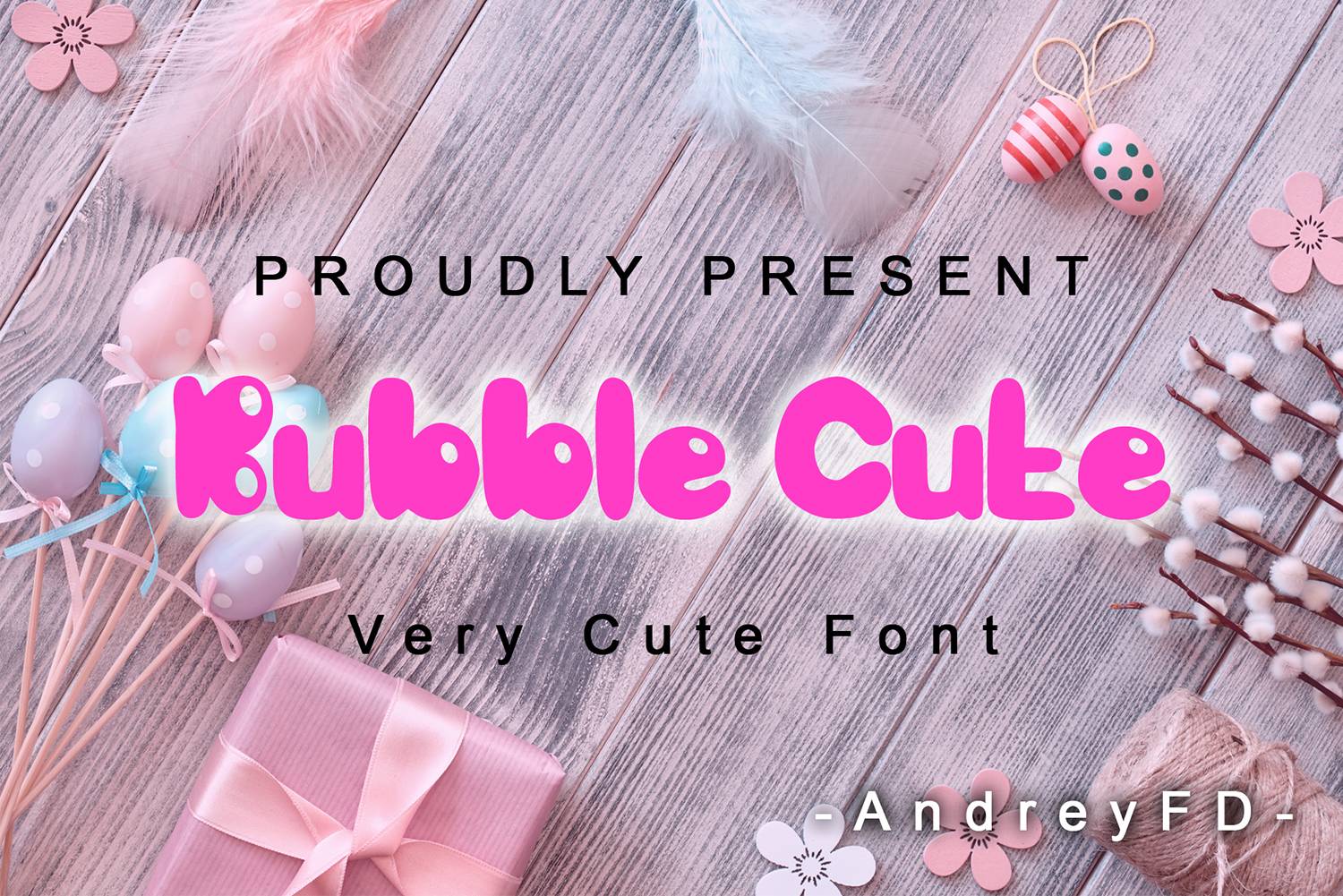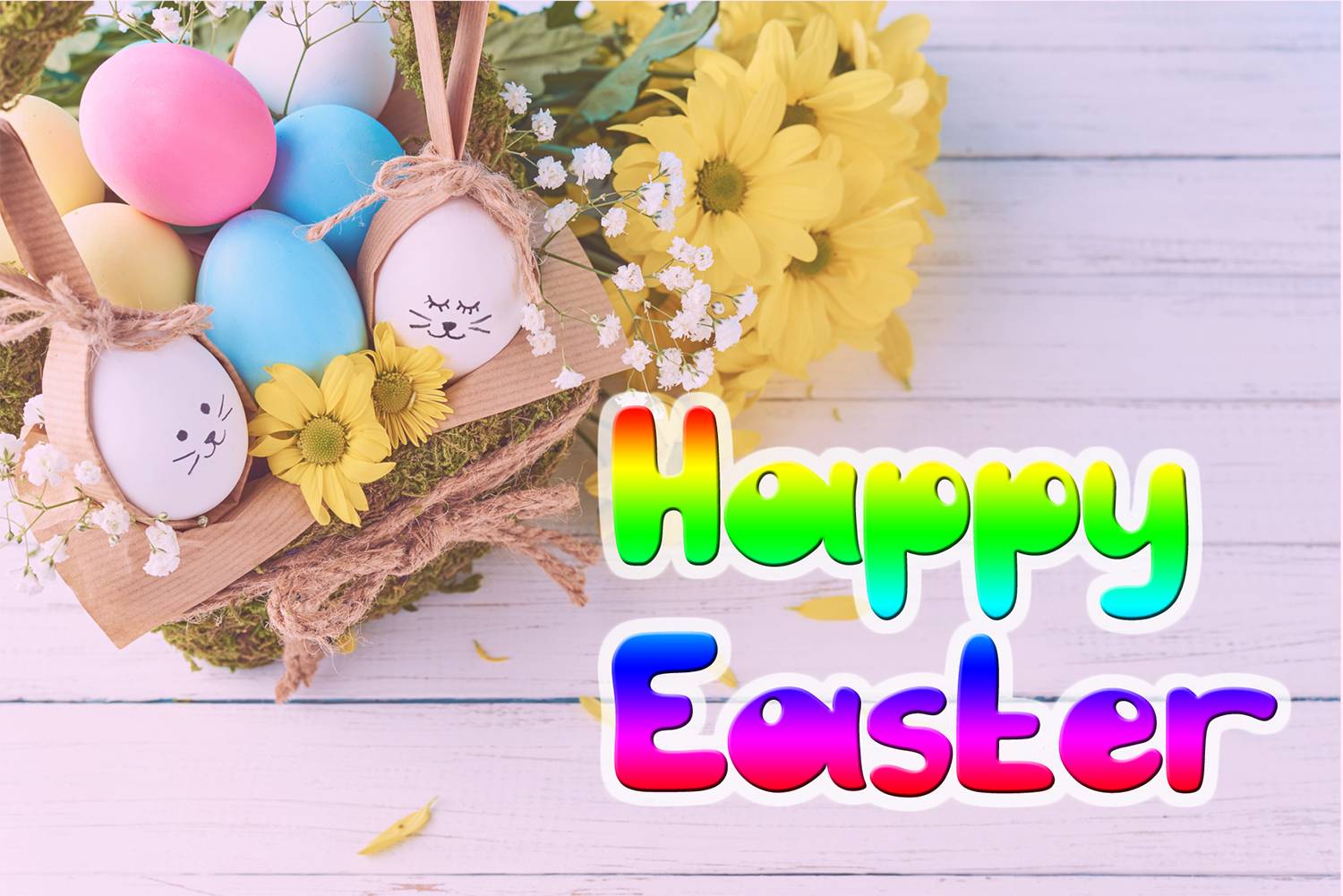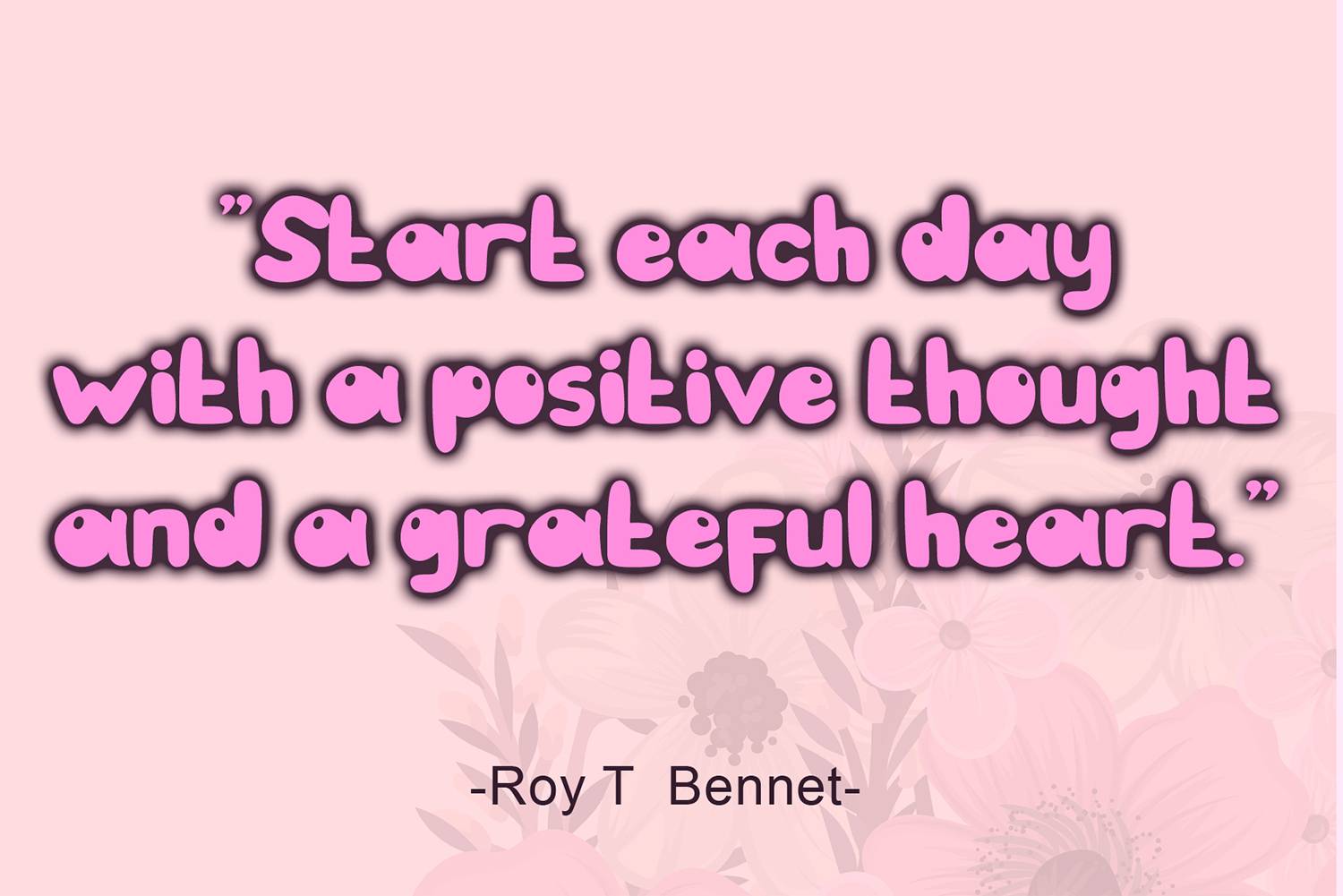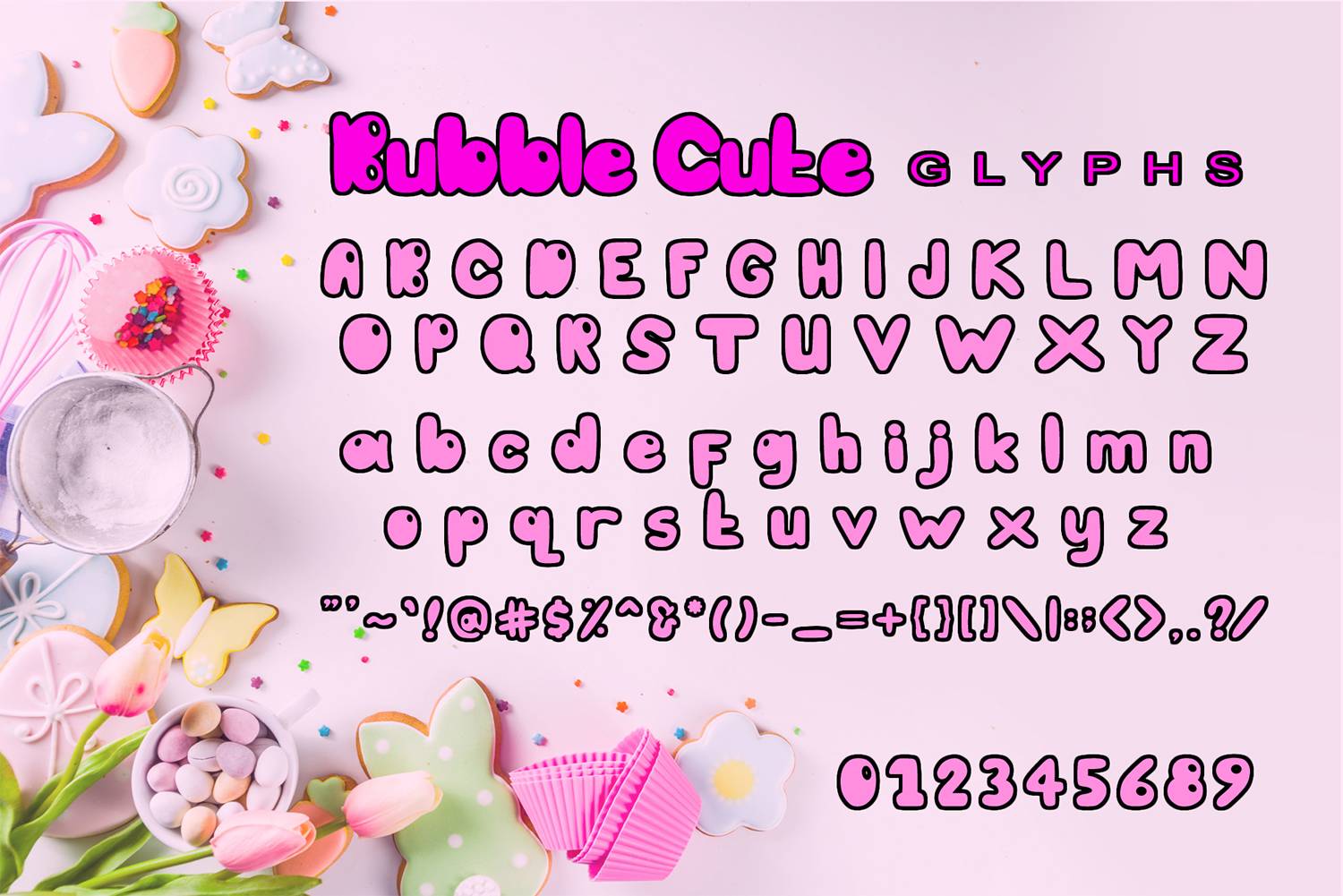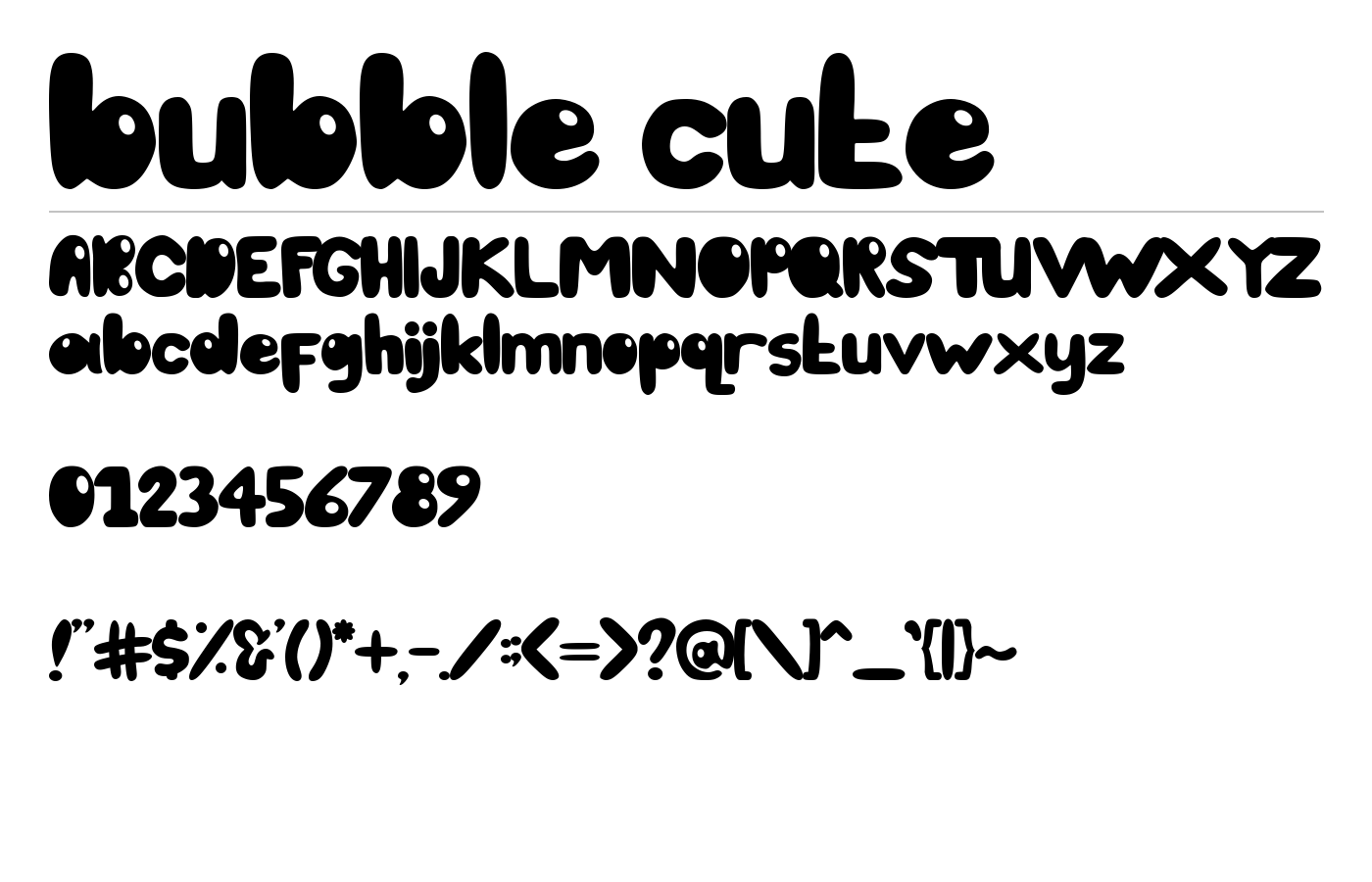
Bubble Cute Font is a playful and bold rounded sans serif with thick, bubbly strokes that give it a fun and approachable personality. Its chunky, irregular letterforms with high x-height and soft curves make it ideal for designs aimed at children or casual, friendly branding. This font works best for logos, posters, and packaging where a cheerful, informal vibe is desired.
Bubble Cute Font
About Bubble Cute Font